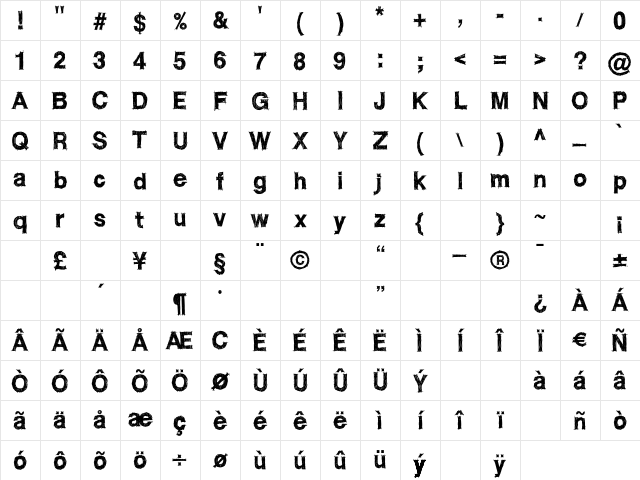
WC ROUGHTRAD BETA Bold Free Font
WC ROUGHTRAD BETA Bold
WC ROUGHTRAD BETA Family
Complete WC ROUGHTRAD BETA Bold glyph index. Displaying only characters natively supported by WC ROUGHTRAD BETA Bold font.
Design Context for WC ROUGHTRAD BETA
WC ROUGHTRAD BETA embraces imperfection - its rough, textured character adds raw authenticity to designs that want to feel lived-in and unconventional.
Pro Tip: Use WC ROUGHTRAD BETA at larger sizes where the texture and irregularity of each letterform can be clearly seen - it loses its character at small sizes.